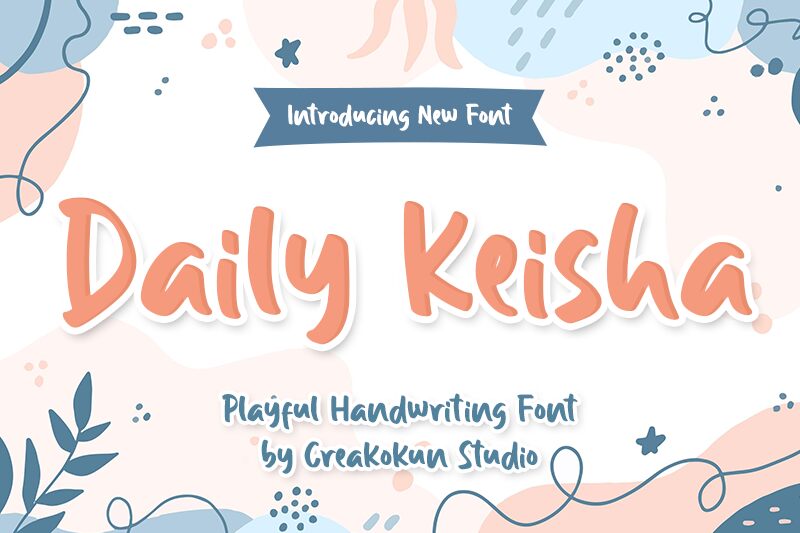
Daily Keisha is a bold, handwritten marker font designed by M Arif Dwi Prasetyo & Eko Nurcahyo. It's perfect for creating eye-catching titles, logos, and posters with a modern, edgy feel. It could also be used in projects such as comic books and magazines.
Daily Keisha
Creakokun Studio
M Arif Dwi Prasetyo & Eko Nurcahyo